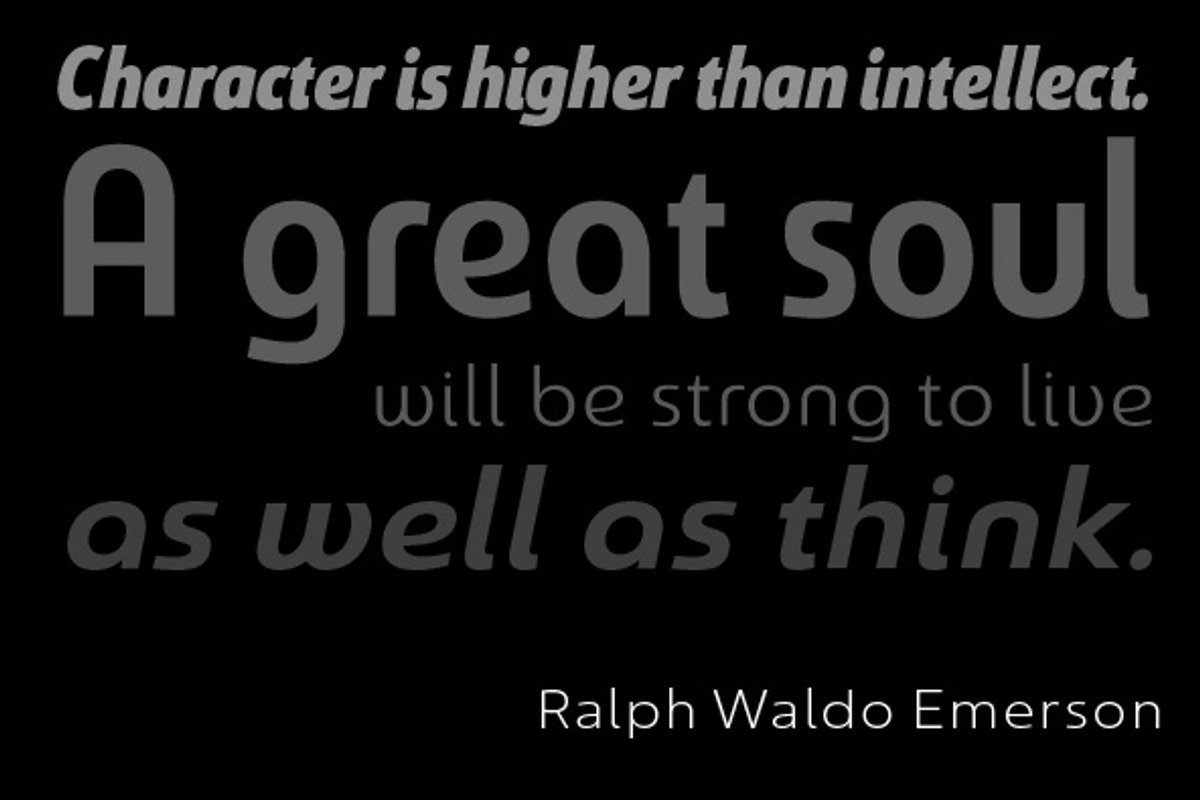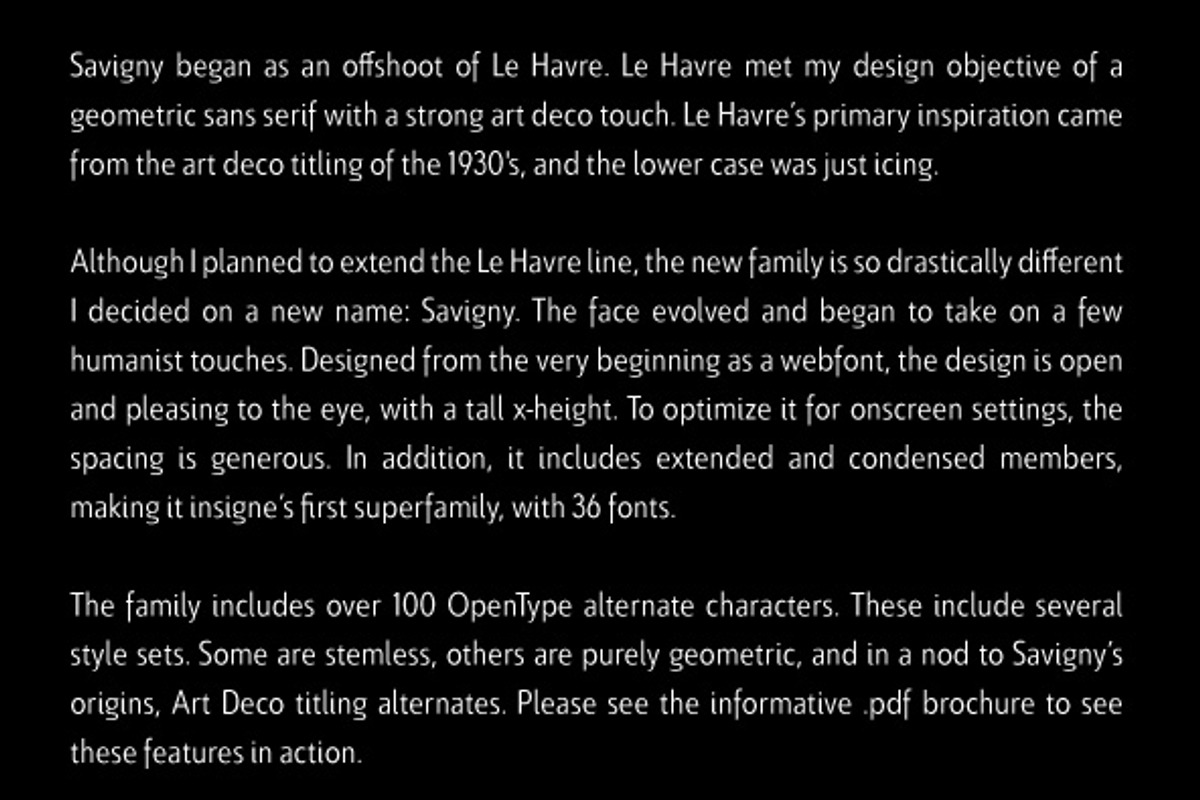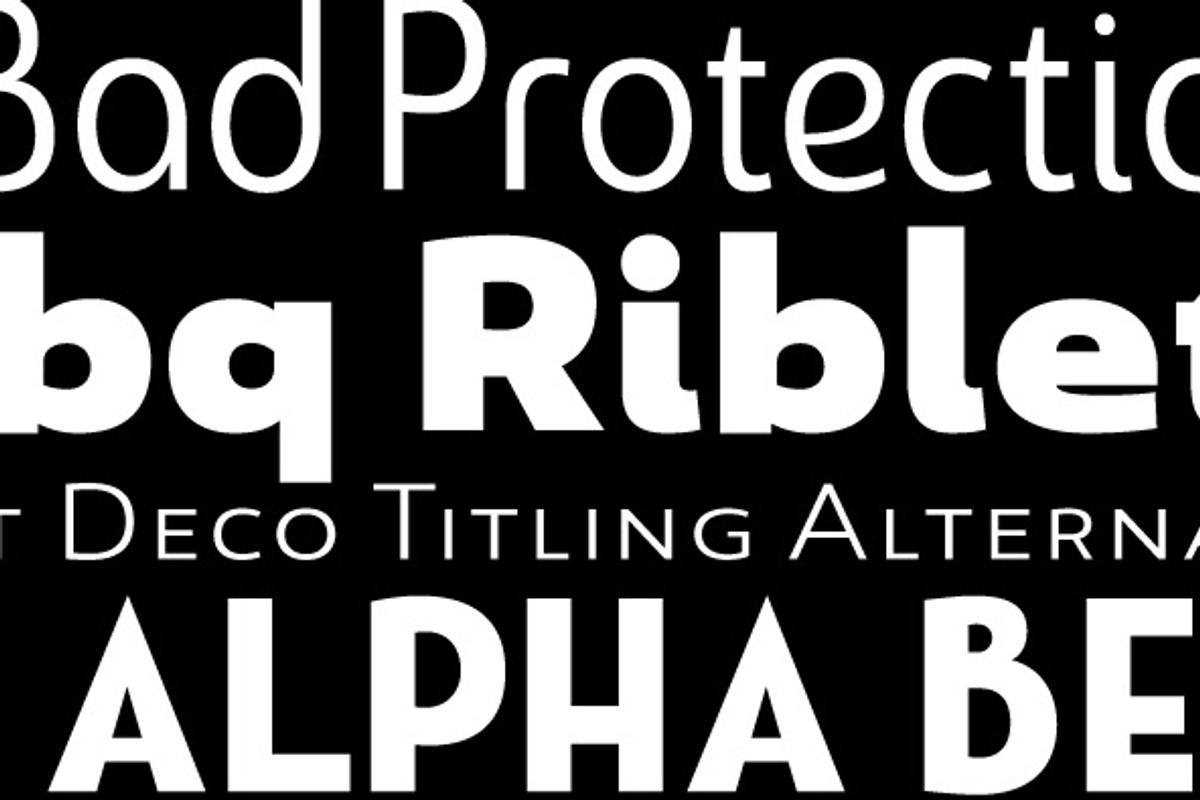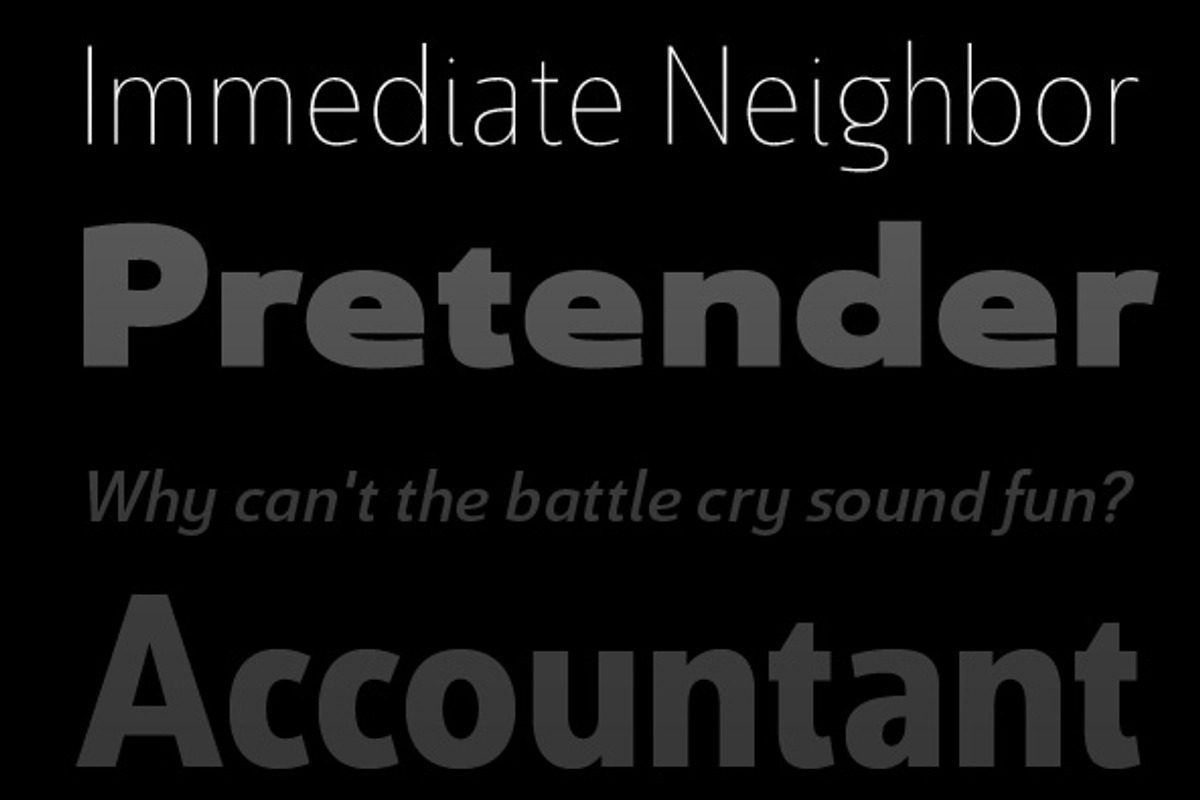
Savigny
"With the rise of webfonts I began to see Le Havre being used frequently online. It's short x-height and very tall ascenders made it difficult to read in on screen text settings as it was intended as display type. With this observation, I felt that there is more room for a geometric sans in the insigne catalog. So I set about to design a new geometric sans using the successful skeleton of the Le Havre family.
Although I planned to extend the Le Havre line, the new family is so drastically different I decided on a new name: Savigny. The face evolved and began to take on a few humanist touches. Designed from the very beginning as a webfont, the design is open and pleasing to the eye, with a tall x-height. To optimize it for onscreen settings, the spacing is generous. In addition, it includes extended and condensed members, making it insigne’s first superfamily.
The family includes over 100 OpenType alternate characters. These include several style sets. Some are stemless, others are purely geometric, and in a nod to Savigny’s origins, Art Deco titling alternates. Please see the informative .pdf brochure to see these features in action."